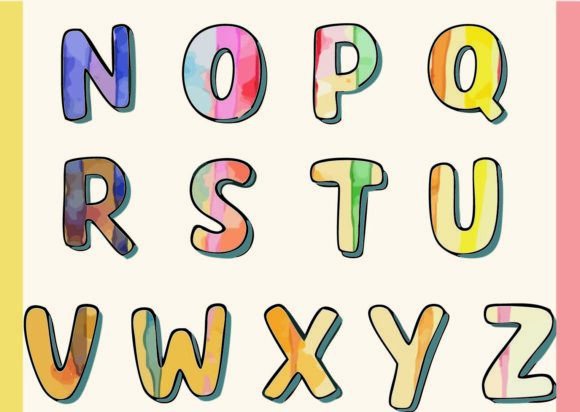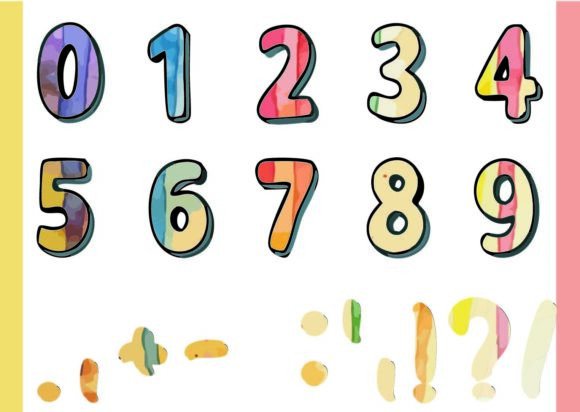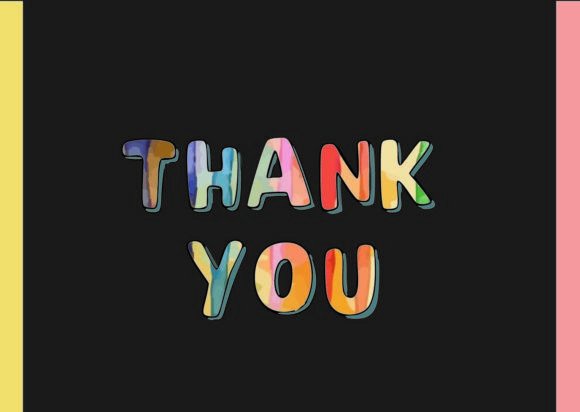
Daphne Font: A Colorful Heaven for Designers and Crafters
Are you tired of using the same old fonts in your designs? Look no further than Daphne Font, a vibrant and unique color font that is sure to take your work to the next level. In this article, we’ll dive into the world of Daphne Font and explore its features, benefits, and uses.
What is Daphne Font?
Daphne Font is a color font, also known as a chromatic font, that features a different set of colors for every single glyph. This means that each letter, number, and symbol in the font has its own unique color scheme, creating a stunning visual effect. The result is a colorful heaven that will add a pop of personality to any design.
A Closer Look at the Glyphs
If you take a closer look at the glyphs in Daphne Font, you’ll notice that each one is made up of complex sets of paths and connections. This level of detail makes each glyph look like a miniature typographic painting. The attention to detail and craftsmanship that has gone into creating Daphne Font is evident in every single glyph.
So, what are the benefits of using Daphne Font in your designs? Here are just a few:
- Add a pop of color: Daphne Font is the perfect way to add a burst of color to your designs. Whether you’re working on a logo, a poster, or a social media graphic, Daphne Font is sure to grab attention.
- Stand out from the crowd: With its unique color scheme and intricate glyph designs, Daphne Font is a great way to make your designs stand out from the crowd.
- Endless creative possibilities: Daphne Font is a versatile font that can be used in a wide range of design applications, from digital graphics to print materials.
Uses for Daphne Font
So, what can you use Daphne Font for? Here are just a few ideas:
- Logos and branding: Daphne Font is a great choice for logos and branding materials, as it adds a touch of personality and whimsy.
- Social media graphics: Daphne Font is perfect for social media graphics, as it grabs attention and adds a pop of color to your posts.
- Print materials: Daphne Font can be used in a range of print materials, from business cards to posters and flyers.
- Crafting and scrapbooking: Daphne Font is also a great choice for crafters and scrapbookers, as it adds a touch of color and personality to handmade projects.
In conclusion, Daphne Font is a unique and versatile color font that is perfect for designers and crafters looking to add a pop of personality to their work. With its intricate glyph designs and complex sets of paths and connections, Daphne Font is a true work of art. Whether you’re working on a logo, a social media graphic, or a handmade project, Daphne Font is sure to inspire and delight.